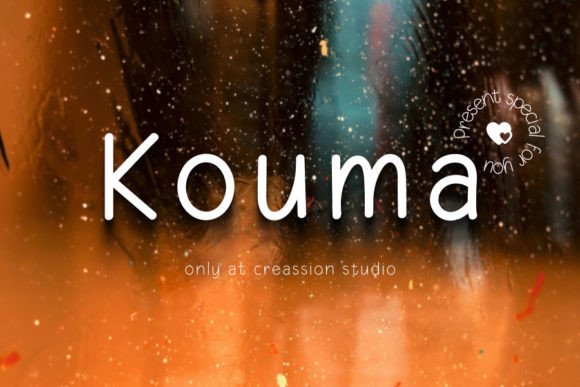
Get ready to immerse yourself in a world of digital elegance with Kouma Font, a contemporary sans-serif masterpiece that will transform your web designs into breathtaking masterpieces. Crafted with meticulous attention to detail by the renowned Creassion Studio, Kouma Font stands as a testament to innovation and creativity in the realm of typography.
As a visionary web designer, you understand the profound impact that fonts have on the success of your projects. Kouma Font is your gateway to unlocking a universe of possibilities, empowering you to elevate your designs to captivating heights. Its clean lines, spacious letterforms, and inherent versatility seamlessly adapt to a myriad of projects, effortlessly enhancing their visual appeal and communicative power.
Harness the allure of Kouma Font to craft websites that exude a sense of sophistication and professionalism. Its minimalist aesthetic shines through, allowing your content to take center stage while maintaining a cohesive and visually pleasing experience. Whether you're designing a personal blog, an e-commerce platform, or a corporate website, Kouma Font will effortlessly elevate your vision, leaving a lasting impression on your audience.
Embrace the boundless creativity that awaits you with Kouma Font. Its compatibility with various design software ensures seamless integration into your workflow. Unleash your imagination and experiment with an array of possibilities, from captivating headlines that demand attention to elegant body text that effortlessly captivates readers. Kouma Font's versatility knows no bounds, making it your ultimate companion in crafting visually stunning and engaging web designs.